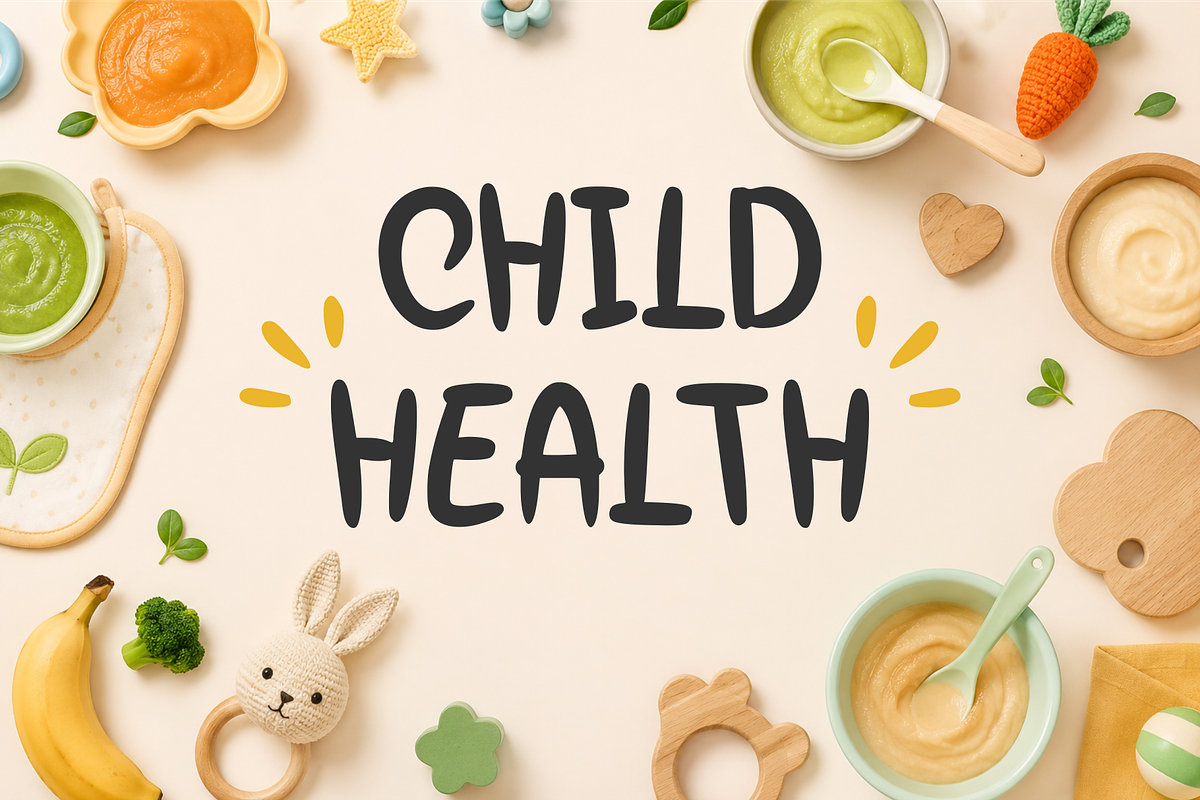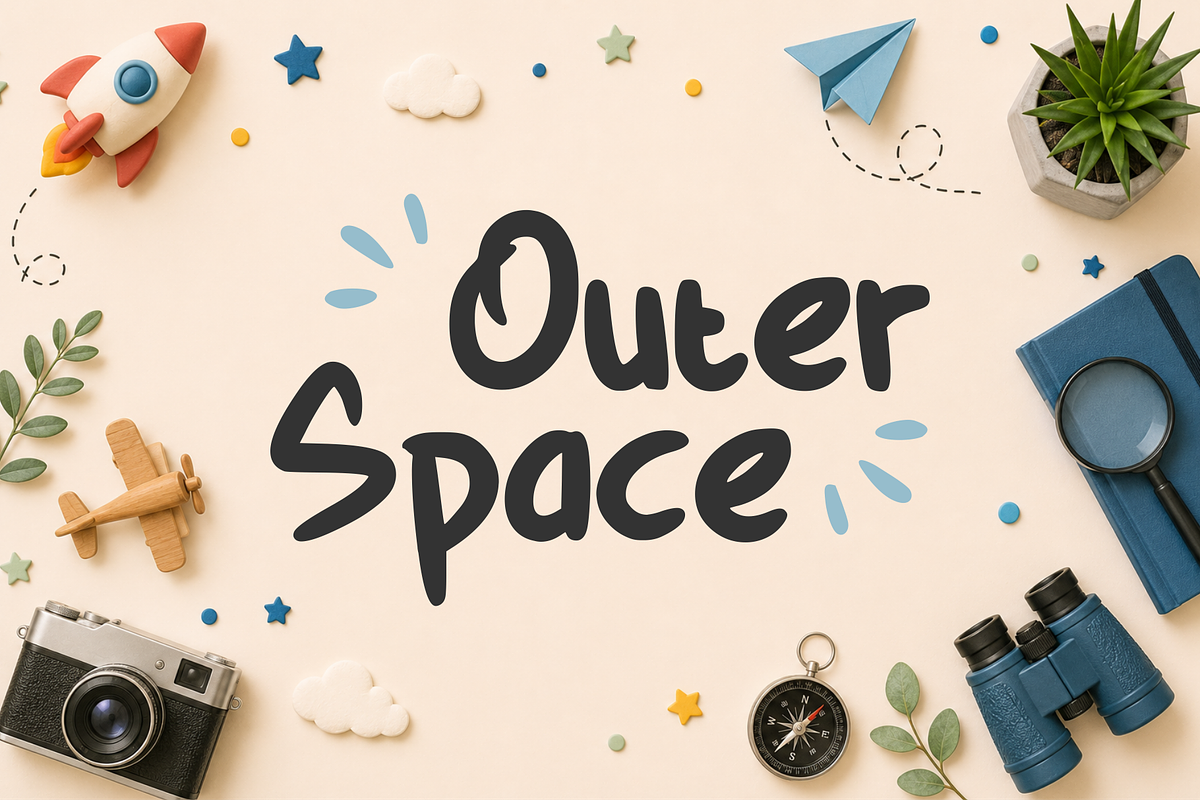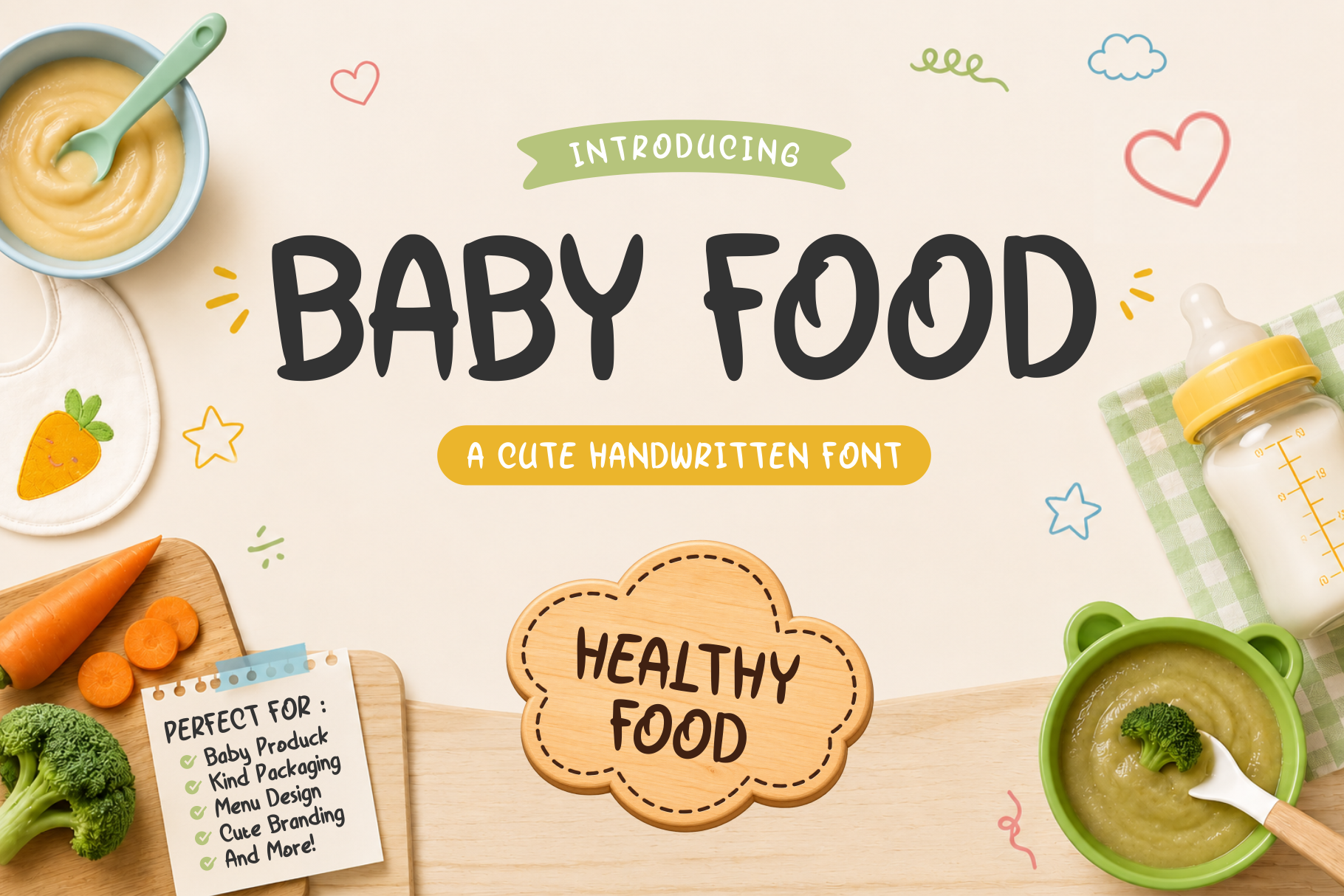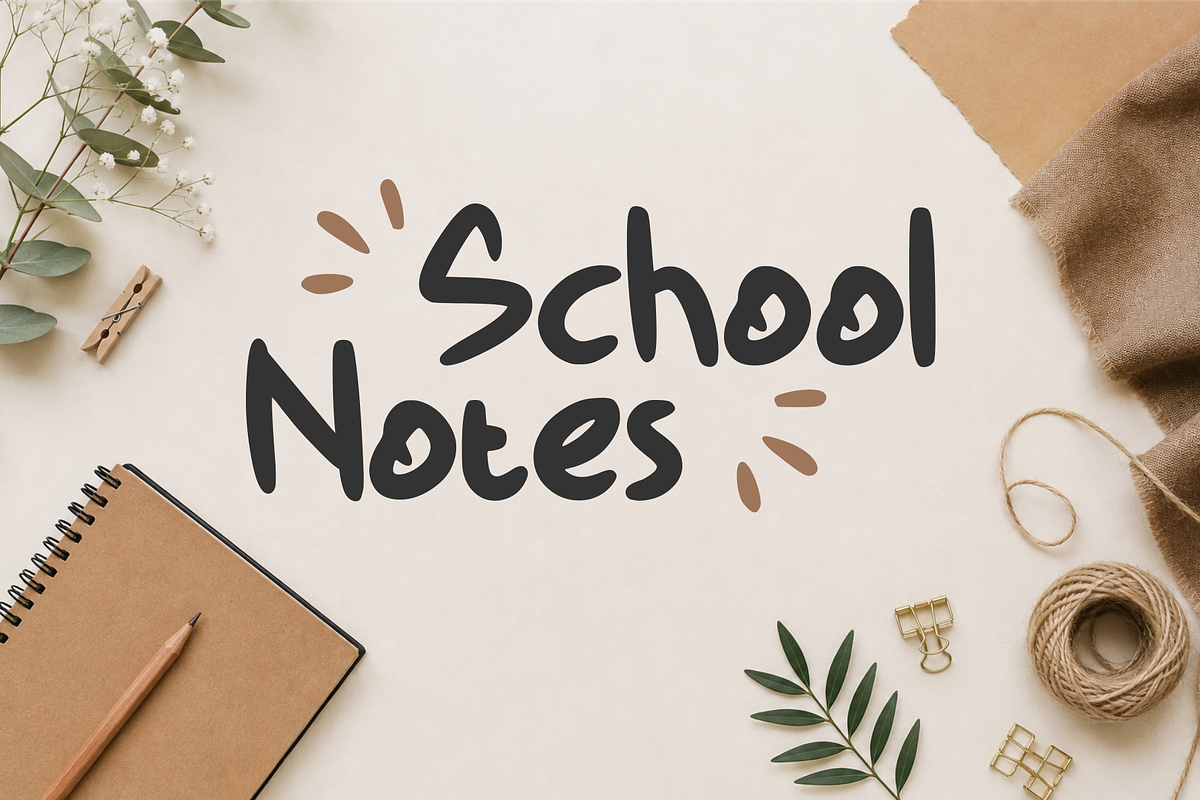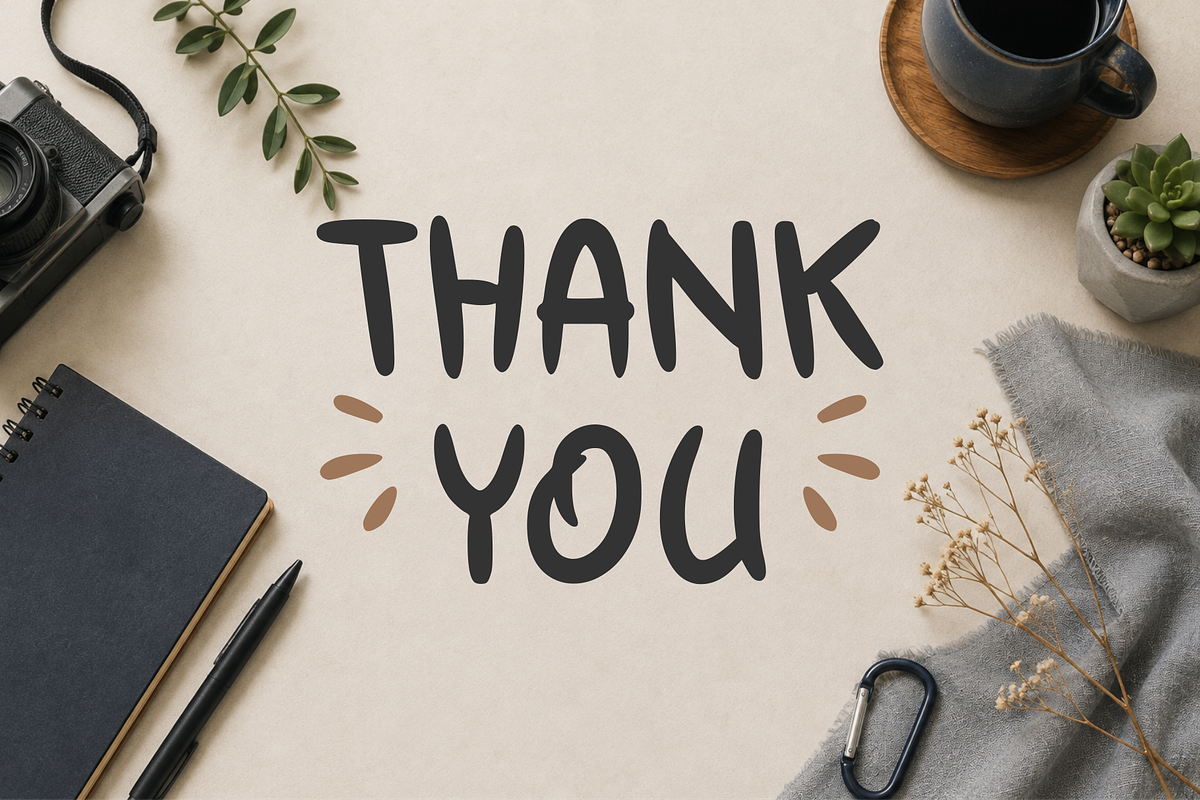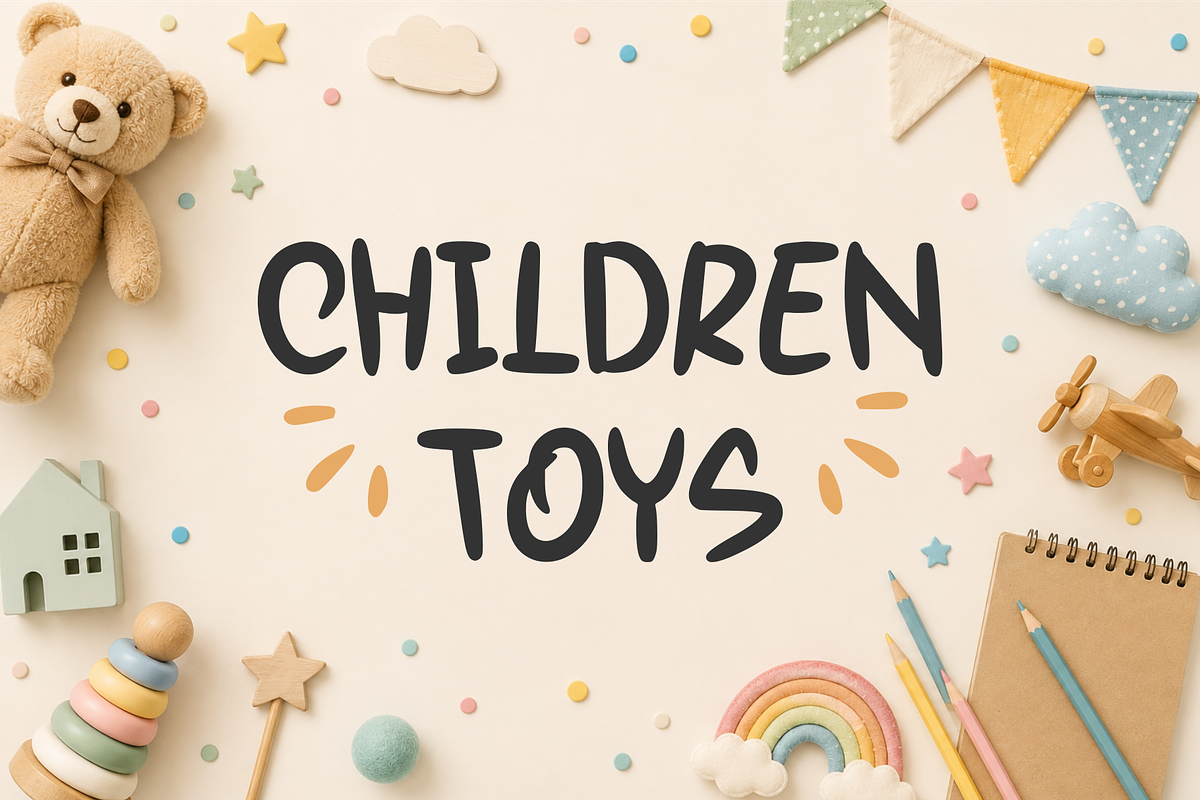
Baby Food – Cute Handwritten Font
Baby Food – Cute Handwritten Font is a fun, bold, and playful handwritten typeface designed to bring a warm and cheerful personality to your creative projects. Its chunky letterforms and friendly character make it perfect for kids’ designs, baby products, food packaging, children’s books, nursery branding, menus, invitations, stickers, labels, social media graphics, and playful branding.
With its cute and approachable style, Baby Food works especially well for designs that need a fun, friendly, youthful, and homemade feel. It is a great choice for baby food brands, kids’ education materials, toys, apparel, packaging, and other cheerful projects.